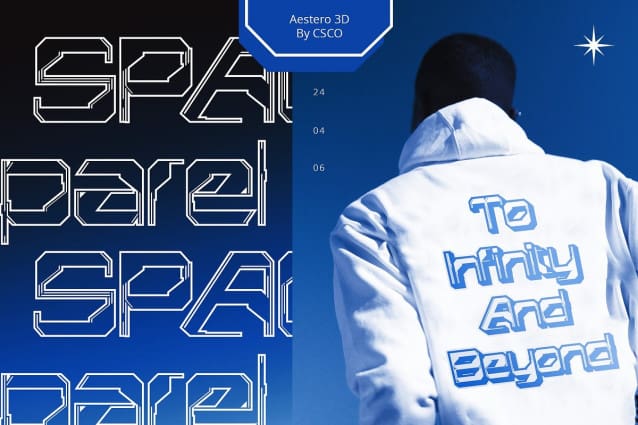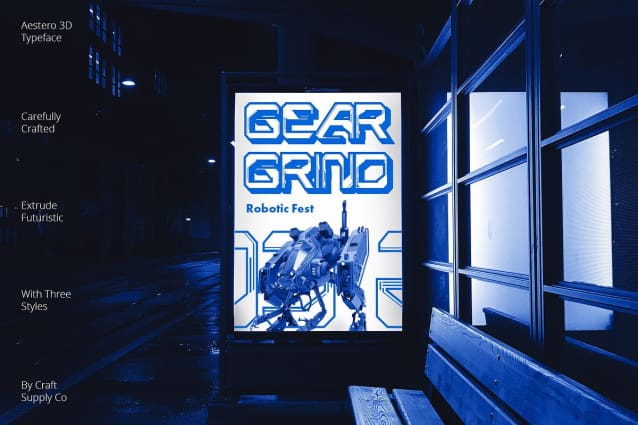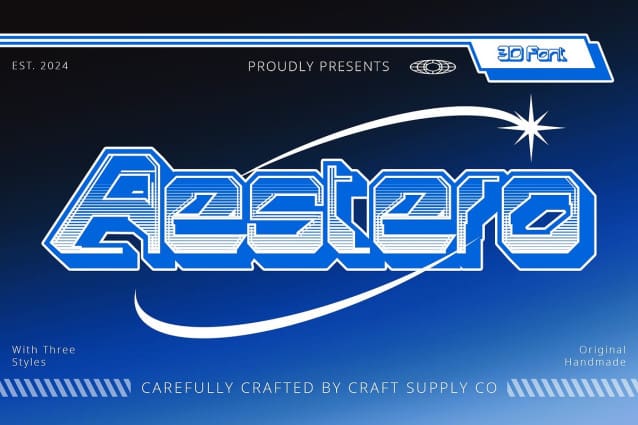
Aestero 3D Font
Aestero 3D Font: The Future of Display Typography. Inspired by Futuristic Technology Aestero 3D embodies the essence of futuristic technology, drawing inspiration from the possibilities of tomorrow. Its sleek and innovative design reflects the cutting-edge advancements of the digital age.
Dynamic 3D Effects With mesmerizing 3D effects, This font transcends traditional display fonts, adding depth and dimension to each character. The futuristic vibe is accentuated by its dynamic visual presence, making it perfect for contemporary projects.
Tailored for Display Needs Crafted specifically for display purposes, This font excels in capturing attention and conveying a sense of modernity. Whether used in advertisements, branding materials, or digital interfaces, it ensures your message is seen and remembered.
Versatile Application Beyond its futuristic aesthetic, This font offers versatility in application. From sci-fi movie posters to technology-themed websites, its sleek and dynamic design adapts seamlessly to various creative contexts.
Redefining Display Typography This font emerges as a groundbreaking font in the realm of display typography, embodying the spirit of future innovation. Its dynamic 3D effects and futuristic allure make it a compelling choice for designers seeking to push the boundaries of creativity and embrace the digital era. Step into the future with This font and elevate your designs to new heights of modernity.